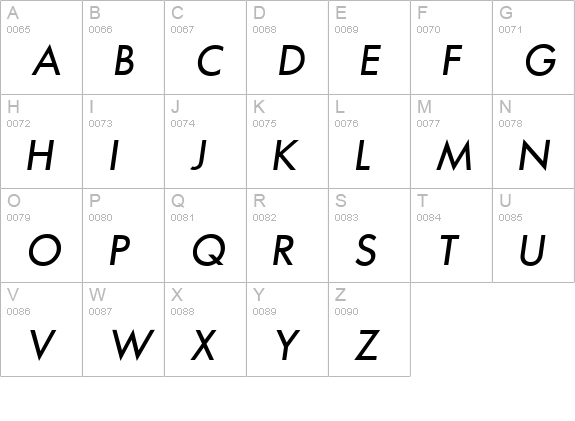
Futura ICG Oblique Font Details
Futura ICG Oblique is a distinctive, italic variant in the Futura typeface family \xE2\x80\x94 well suited to design and typography projects.
Futura ICG Oblique is a classic and elegant font that exudes sophistication and modernity. With its sleek slanted design, this typeface adds a dynamic and stylish touch to any project. The smooth curves and precise lines of Futura ICG Oblique create a sense of movement and energy, making it perfect for capturing attention and creating a bold statement. This font is not only visually appealing but also highly versatile, suitable for a wide range of design applications including branding, advertising, and editorial design. Whether used for headlines, body text, or graphic elements, Futura ICG Oblique brings a touch of class and professionalism to any project. What's even better is that Futura ICG Oblique is available for free download at FontsMarket.com. Now you can easily access this high-quality font to elevate your designs without any cost. Don't miss out on this opportunity to enhance your creative projects with the timeless beauty of Futura ICG Oblique.